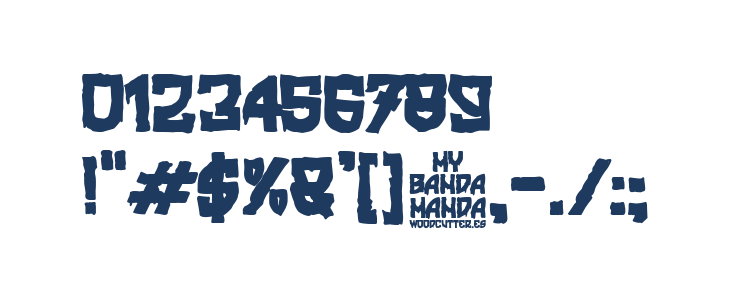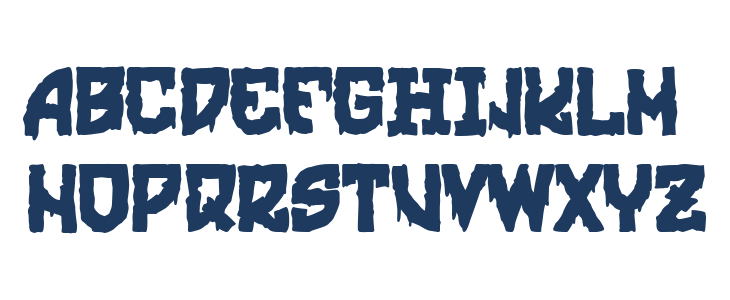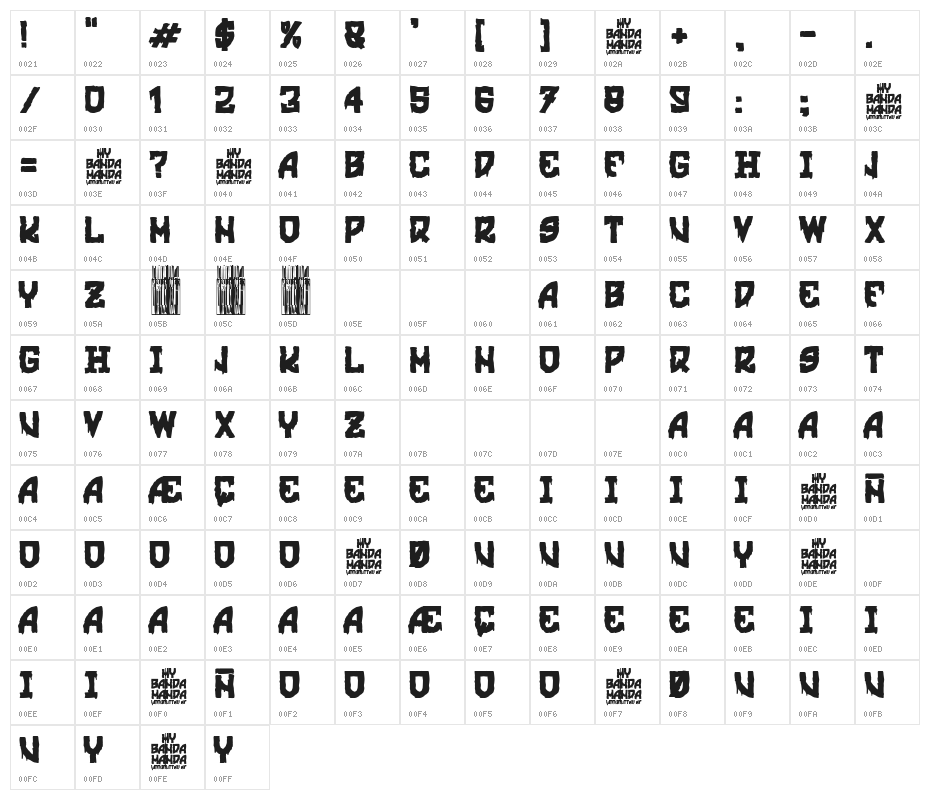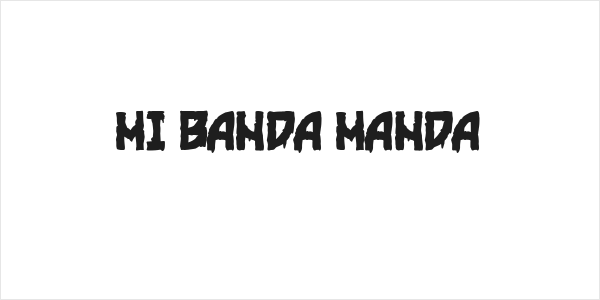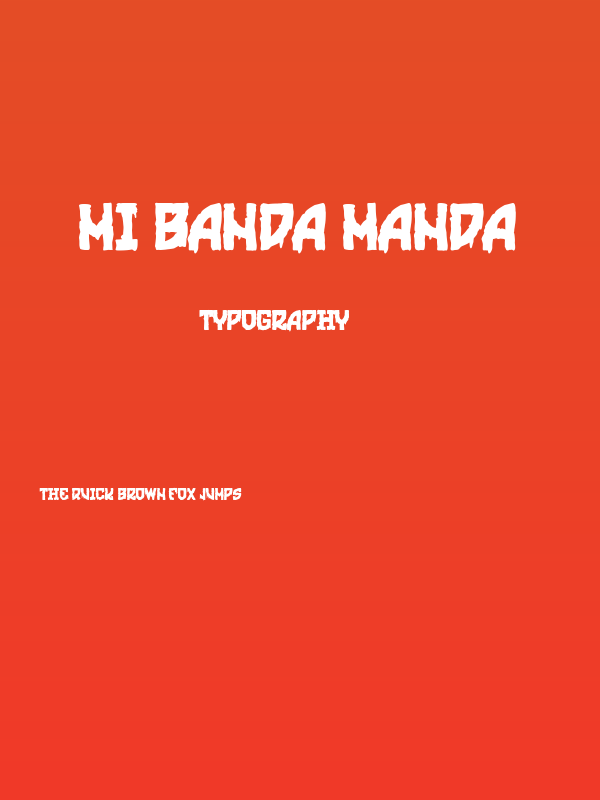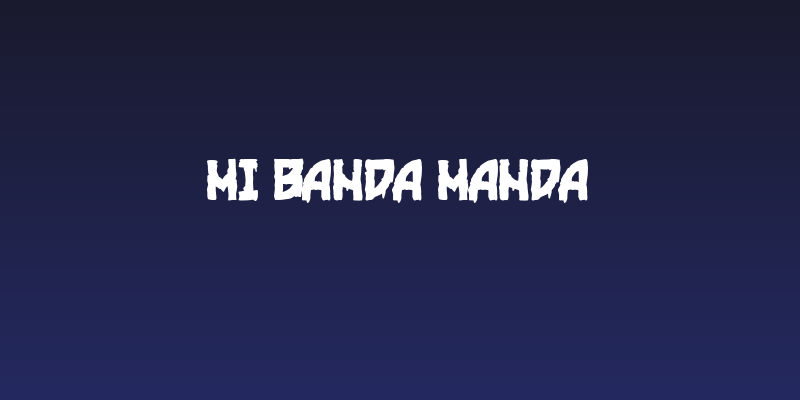
Mi Banda Manda Font
| Stile generale | Decorative, Urban, Grunge |
| Caso d'uso | Headlines, Posters, Logos, Event Flyers |
| Progetti proposti | Posters, music album covers, event flyers, graffiti art, branding for extreme sports or youth-oriented products. |